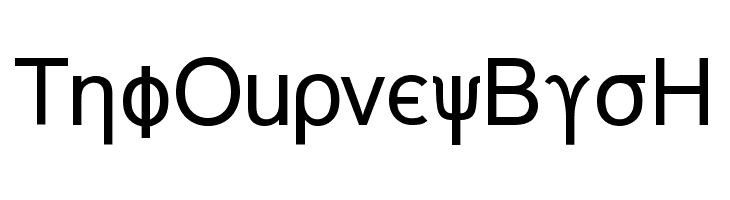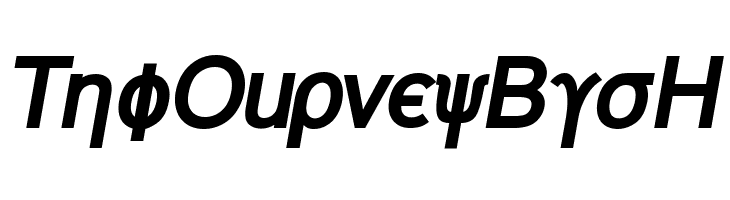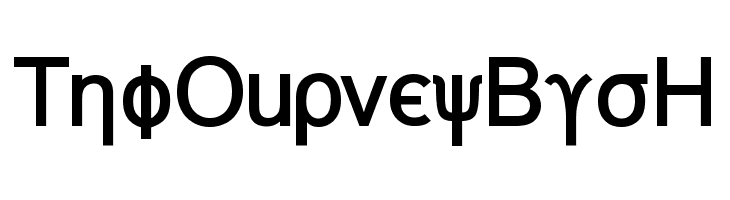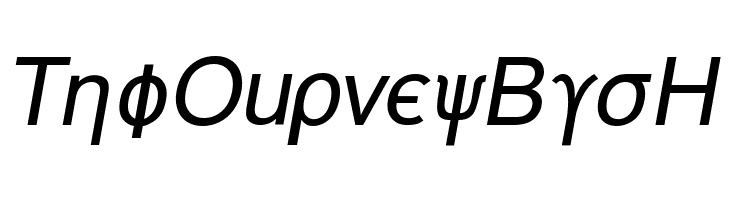
Naxos-Normal Font
A modern, geometric sans-serif font with a clean and minimalistic design.
Naxos-Bold Font
A bold, modern font with geometric lines and uniform stroke widths.
Naxos-BoldItalic Font
Naxos-Italic Font
A modern italic font with smooth strokes and medium contrast, featuring Greek characters.